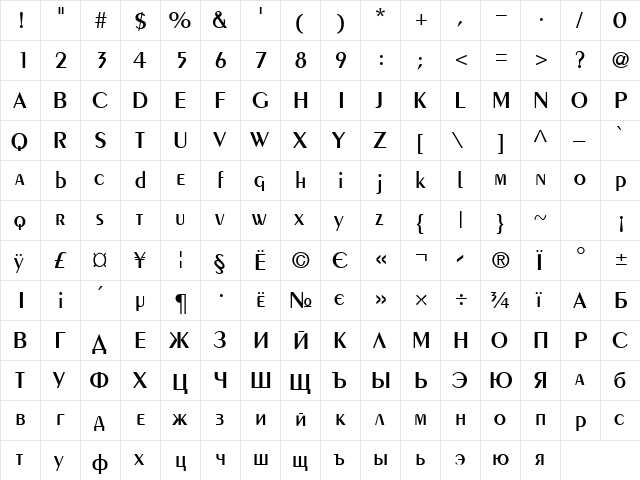
Penta Normal Font Preview
Penta Normal
Design Context for Penta Typeface
Penta is a composed and adaptable typeface that performs quietly and consistently across a wide range of design contexts.